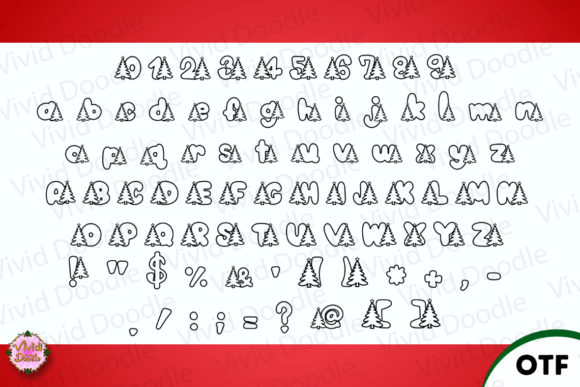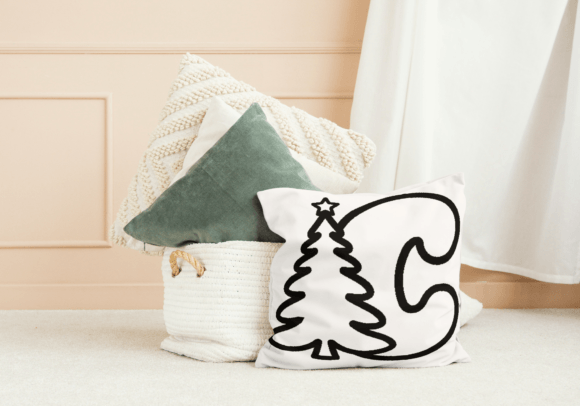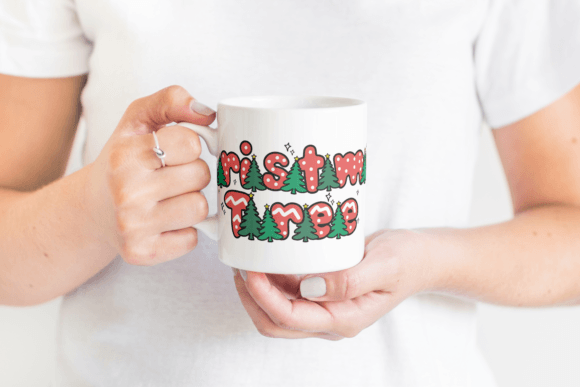
Deck the Halls with Christmastree Font: A Festive Design Delight
What Makes Christmastree Font So Special?
Christmastree Font is a unique, hand-lettered typeface designed to bring the magic of the holiday season to your creations. With its enchanting and adaptable nature, this font is perfect for designers, crafters, and creative hobbyists looking to add a touch of festive flair to their projects.
- ✨ Unique and festive design that’s sure to stand out
- ✅ Highly versatile and adaptable for various projects
- 🎉 Excellent for holiday-themed designs, but also great for other creative endeavors
- 💻 Clean and crisp lines, making it perfect for digital and print use
⚠️ As with any font, there might be some limitations when using it in certain contexts, such as:
- 🤔 Some characters may not be suitable for body text due to their decorative nature
- ⚠️ Might not be the best choice for very small font sizes or low-resolution images
- Experiment with OpenType features, such as glyphs and stylistic alternates, to add more flair to your text
The Story Behind Christmastree Font: Designer Inspiration
Christmastree Font was designed with the goal of capturing the warmth and magic of the holiday season. Our designer drew inspiration from vintage Christmas cards, twinkling lights, and the joy of festive traditions. The result is a font that’s both nostalgic and modern, perfect for adding a touch of holiday cheer to your creations.